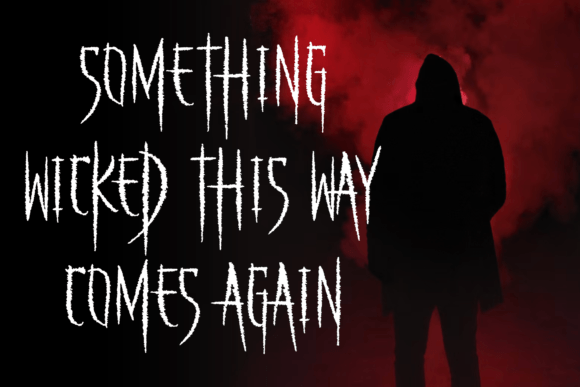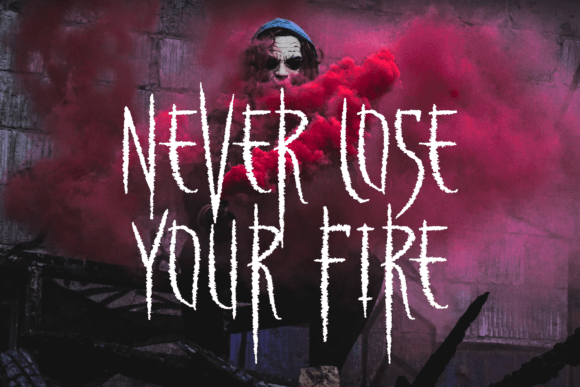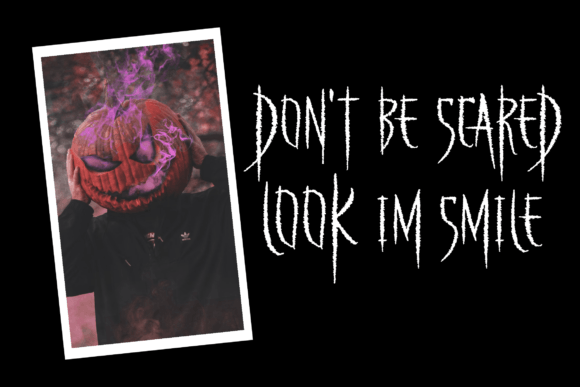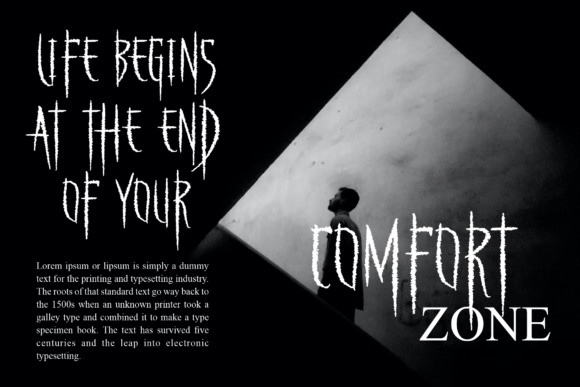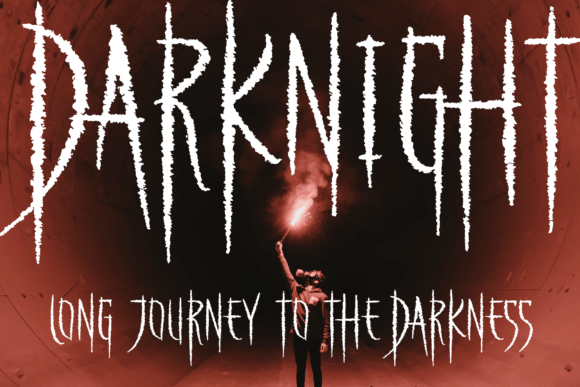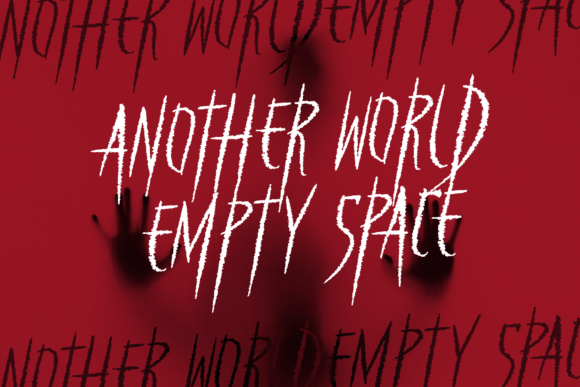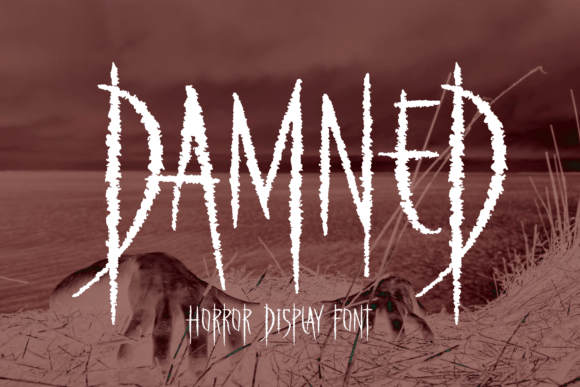
Unleash the Horror: Introducing the Damned Font
Are you a designer or crafter looking to add a touch of spookiness to your creations? Look no further than the Damned Font, a creepy, horror-themed handwritten display font that’s sure to send chills down the spine. With its eerie and mysterious vibe, this font is perfect for any project that requires a haunting atmosphere.
The Story Behind the Damned Font
The Damned Font is a carefully crafted typeface designed to evoke the feeling of dread and unease. Its handwritten style gives it a personal and intimate touch, as if the words themselves were scrawled on the page by a haunted hand. The font’s creator aimed to capture the essence of horror and the supernatural, resulting in a unique and captivating design that’s sure to leave a lasting impression.
Key Features of the Damned Font
- Creepy and Horror-Themed: The Damned Font is designed to create a spooky and mysterious atmosphere, making it perfect for Halloween-themed projects, horror movie posters, and haunted house designs.
- Handwritten Display Font: The font’s handwritten style gives it a personal and unique touch, adding a level of authenticity to any project.
- Versatile: The Damned Font can be used for a wide range of projects, from digital designs to print materials, and from horror-themed artwork to creepy crafts.
- Easily Customizable: The font is highly customizable, allowing designers to adjust the size, color, and style to fit their project’s needs.
Uses for the Damned Font
The Damned Font is perfect for a variety of projects, including:
- Horror Movie Posters: Create eye-catching posters for your favorite horror movies or use the font to design your own movie poster.
- Halloween-Themed Designs: Add a spooky touch to your Halloween designs, from party invitations to decorations.
- Haunted House Designs: Use the Damned Font to create creepy signs, posters, and other materials for haunted houses or haunted attractions.
- Creepy Crafts: Add a touch of horror to your crafts, from knitted items to handmade cards.
- Digital Designs: Use the Damned Font in your digital designs, from social media graphics to website headers.
Tips for Using the Damned Font
To get the most out of the Damned Font, follow these tips:
- Use it Sparingly: The Damned Font is designed to make a statement, so use it sparingly to create a greater impact.
- Experiment with Colors: Try out different colors to create a unique and eye-catching effect.
- Combine with Images: Combine the Damned Font with creepy images or illustrations to create a haunting atmosphere.
- Play with Sizes: Experiment with different font sizes to create a sense of hierarchy and emphasis.
The Damned Font is a unique and captivating typeface that’s sure to add a touch of horror and mystery to any project. With its creepy and handwritten style, this font is perfect for designers and crafters looking to create a spooky and eerie atmosphere. Whether you’re designing a horror movie poster, a haunted house sign, or a creepy craft, the Damned Font is sure to deliver a chilling effect.